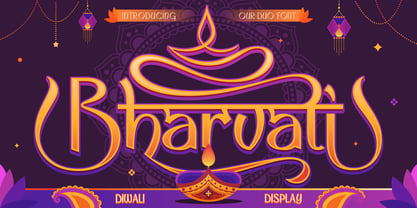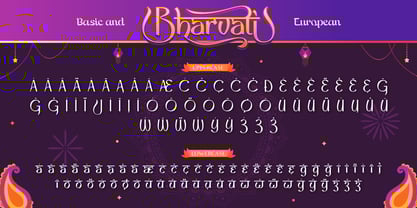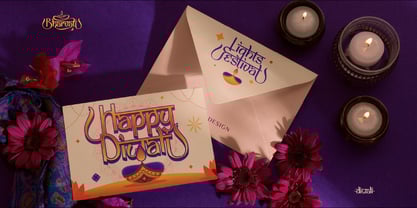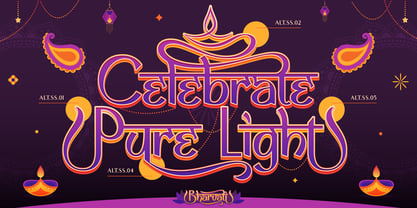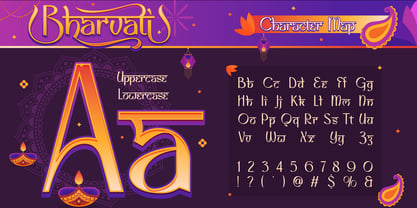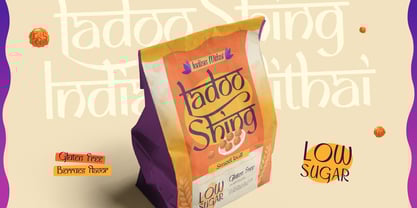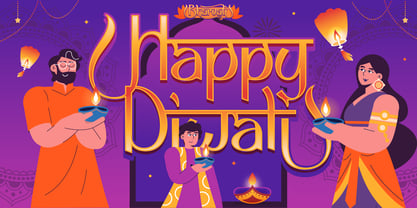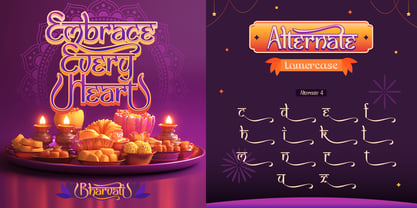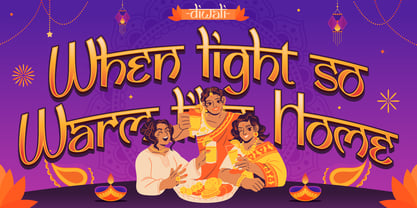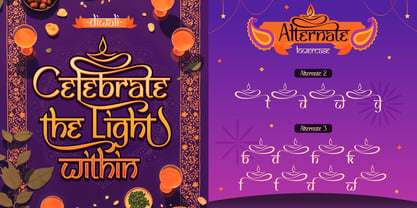
Bharvati
by Burntilldead
The Bharvati Font Family was designed by Eric Kurniawan and published by Burntilldead. Bharvati contains 2 styles and family package options.
Meet Bharvati – your ultimate Indian-style display font that’s bursting with festive vibes! Inspired by the beauty of Diwali lights, traditional patterns, and elegant curves, Bharvati blends cultural charm with modern design flair. The bold strokes and flowing lines make it perfect for headlines, invitations, branding, or any project that needs a touch of India’s vibrant spirit.
It comes in two styles: Regular for a clean, polished look, and Ink Bleed for that artistic, handcrafted vibe. Whether you’re designing festival posters, packaging, social media graphics, or wedding cards, Bharvati will light up your design just like a Diwali diya.
Bring warmth, culture, and celebration into your typography with Bhavarti!
Features:
• A - Z set (Uppercase & Lowercase)
• Number
• Punctuation
• Alternate
• Multilingual